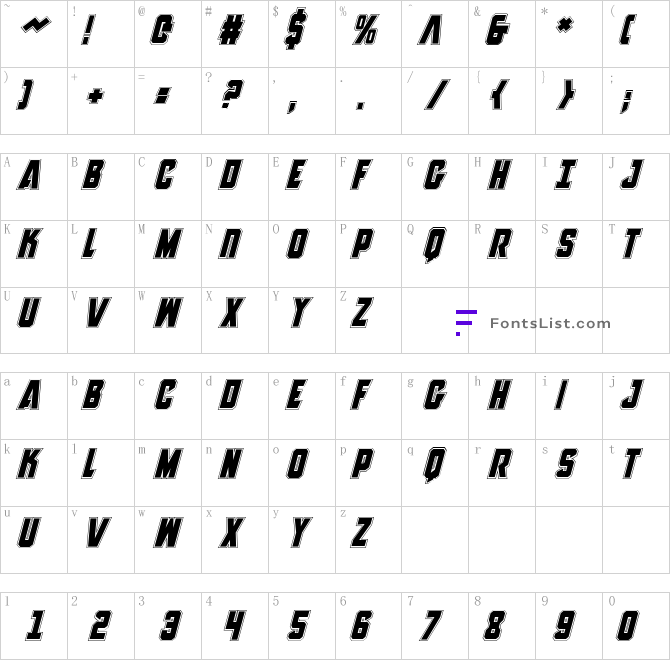
- Font Name:Anitlles Academy Italic
Anitlles-Academy-Italic.ttf is a very beautiful artistic font, Anitlles-Academy-Italic.ttf is widely used in the design and printing of various books and pictures,Anitlles-Academy-Italic.ttf has a strong visual impact,Anitlles-Academy-Italic.ttf is a commonly used font in newspapers, magazines and books, and is used in posters, e-commerce Poster design, store design, logo design, font design and other fields.Anitlles-Academy-Italic.